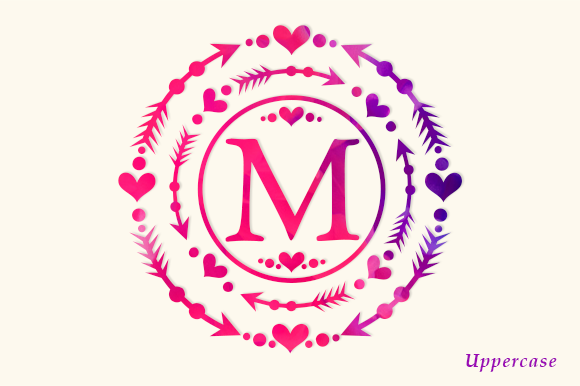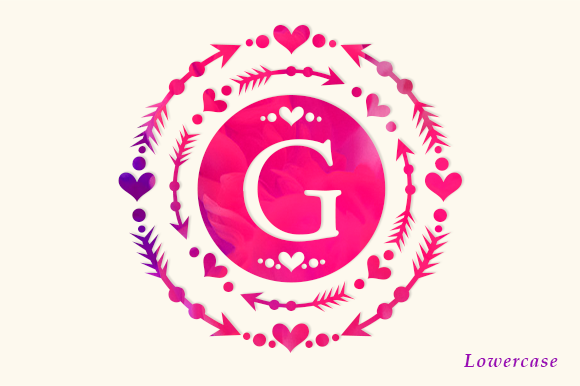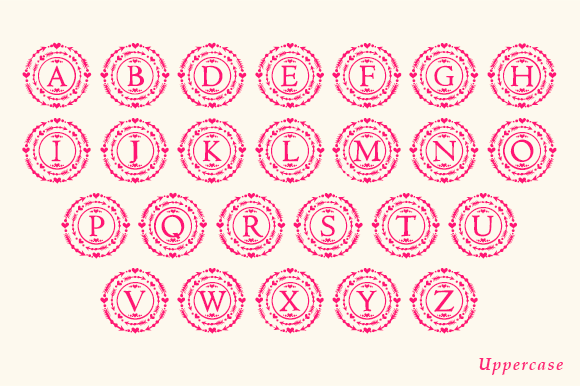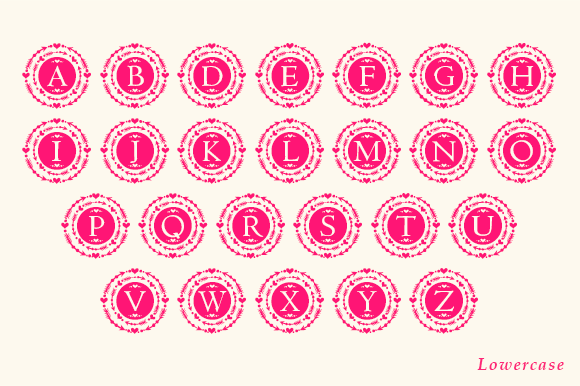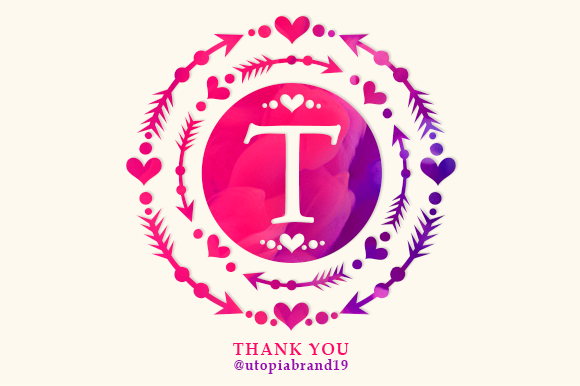
Introduction to Love Arrow Monogram Font Font
Fonts play a crucial role in design, and the Love Arrow Monogram Font font is a typeface that brings both character and versatility to any project. Whether you’re working on a branding project, a website, or a print design, the Love Arrow Monogram Font font offers a unique style that can elevate your work.
Love Arrow Monogram is a romantic and unique decorative font.
Add this lovely looking font to each of your letters, wedding invitations or favorite design ideas, and you will be astounded by the outcome .
Key Features of Love Arrow Monogram Font Font
Why Choose Love Arrow Monogram Font Font?
The Love Arrow Monogram Font font is more than just a typeface – it’s a design tool that helps you communicate your message with style and clarity. Its unique character set and versatile design make it suitable for a wide range of applications, from elegant invitations to bold headlines.
With its carefully crafted letterforms and balanced proportions, the Love Arrow Monogram Font font ensures readability and visual appeal across all mediums.
What makes Love Arrow Monogram Font font special?
The Love Arrow Monogram Font font stands out with its unique design, exceptional readability, and versatility across various design applications.